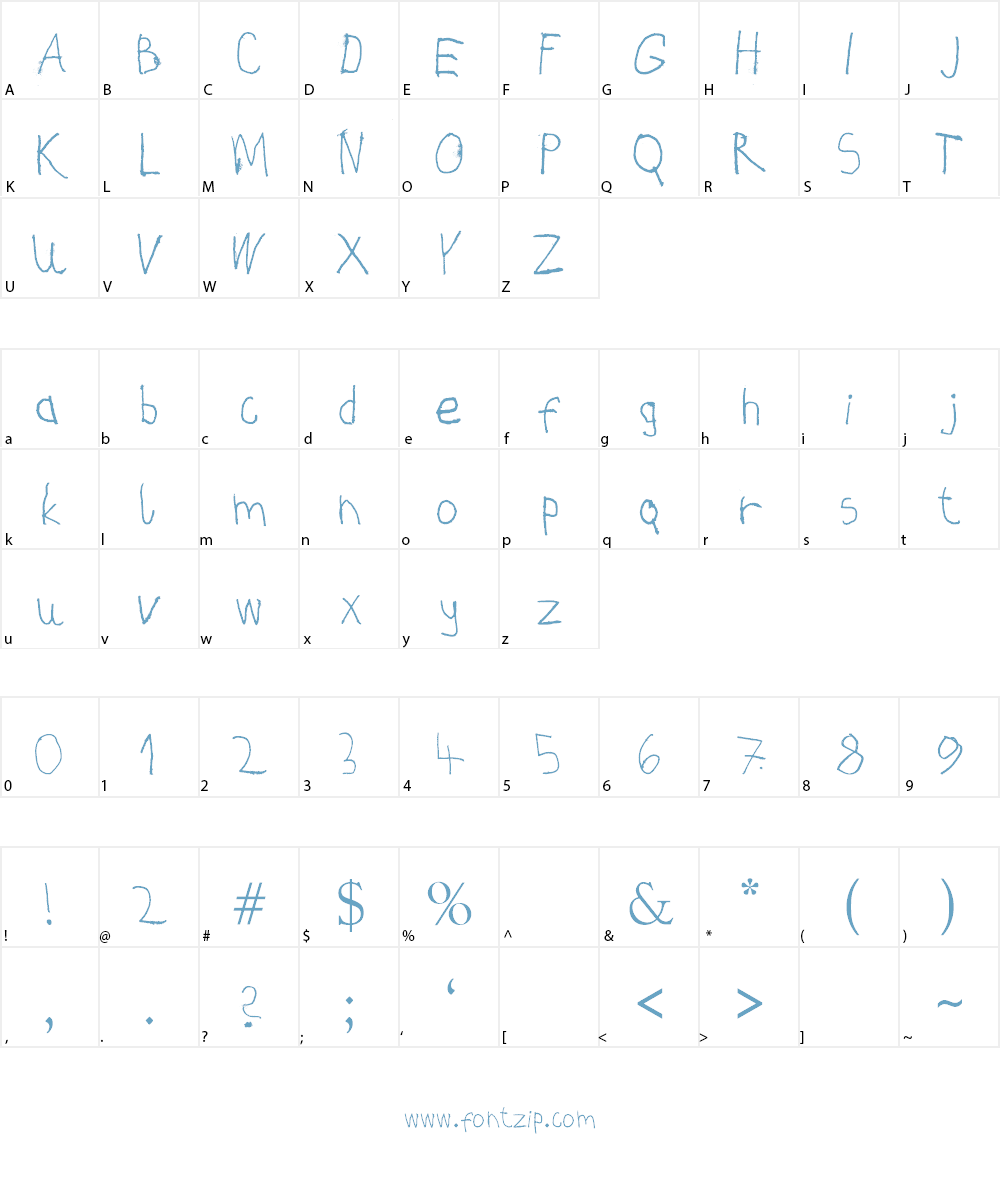
This font was created by me and my 6 years old son Mel. He just started school this year and already can write entire alpha. This font is little clumsy and dirty. On some letters are fingerprints from ink and other grungy elements. Capital, lower cases and numbers are included. Personal and commercial use ok.